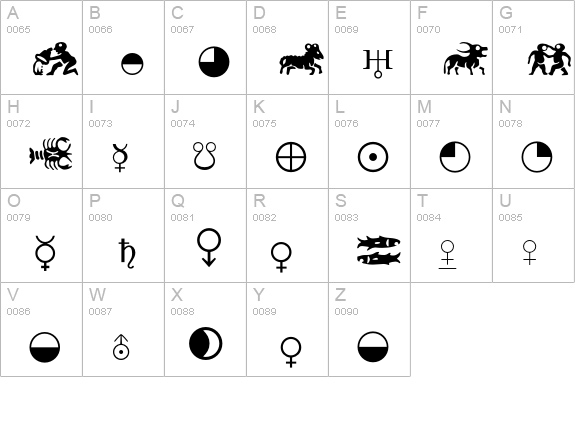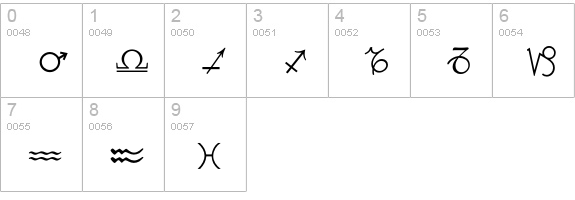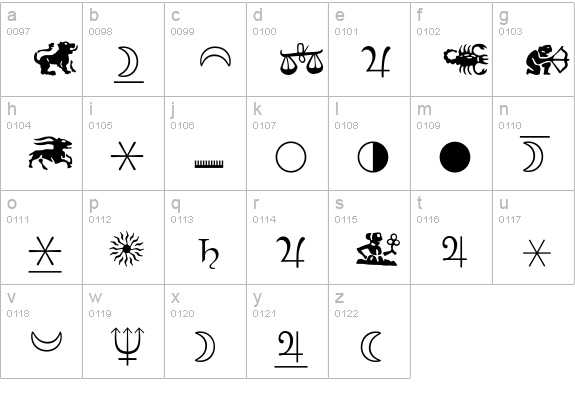
AstrologyP01 Font Details
Introducing AstrologyP01 font, a captivating and mystical typeface that will enchant your projects with its celestial charm. Inspired by the stars and constellations, AstrologyP01 features elegant and intricate letterforms that evoke a sense of cosmic wonder. This font is perfect for adding a touch of magic to your designs, whether you're creating astrological charts, mystical logos, or ethereal branding. What sets AstrologyP01 apart is its unique blend of sophistication and whimsy, making it a versatile choice for a wide range of design projects. The intricate details of each letter give this font a sense of mystery and intrigue, drawing the eye and captivating the imagination. Best of all, AstrologyP01 is freely available to download at FontsMarket.com, so you can add this enchanting font to your collection with ease. Embrace the magic of the cosmos and elevate your designs with AstrologyP01 font today.